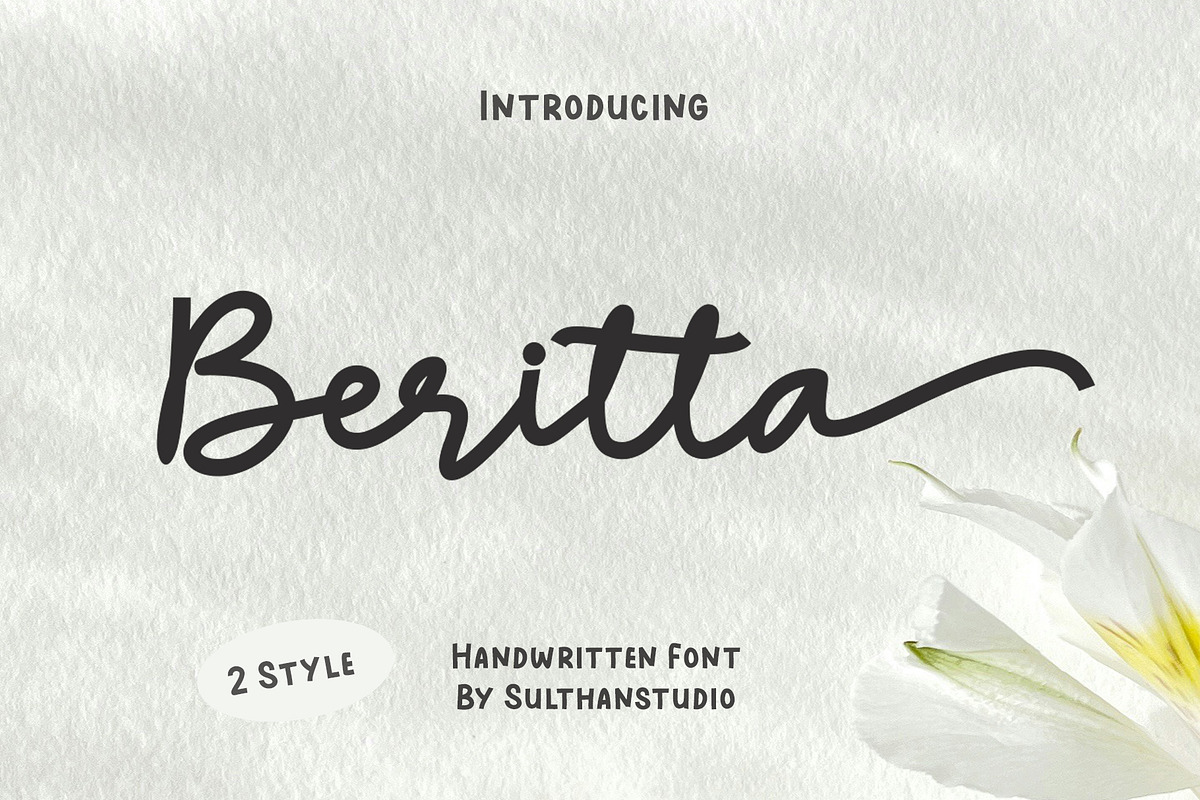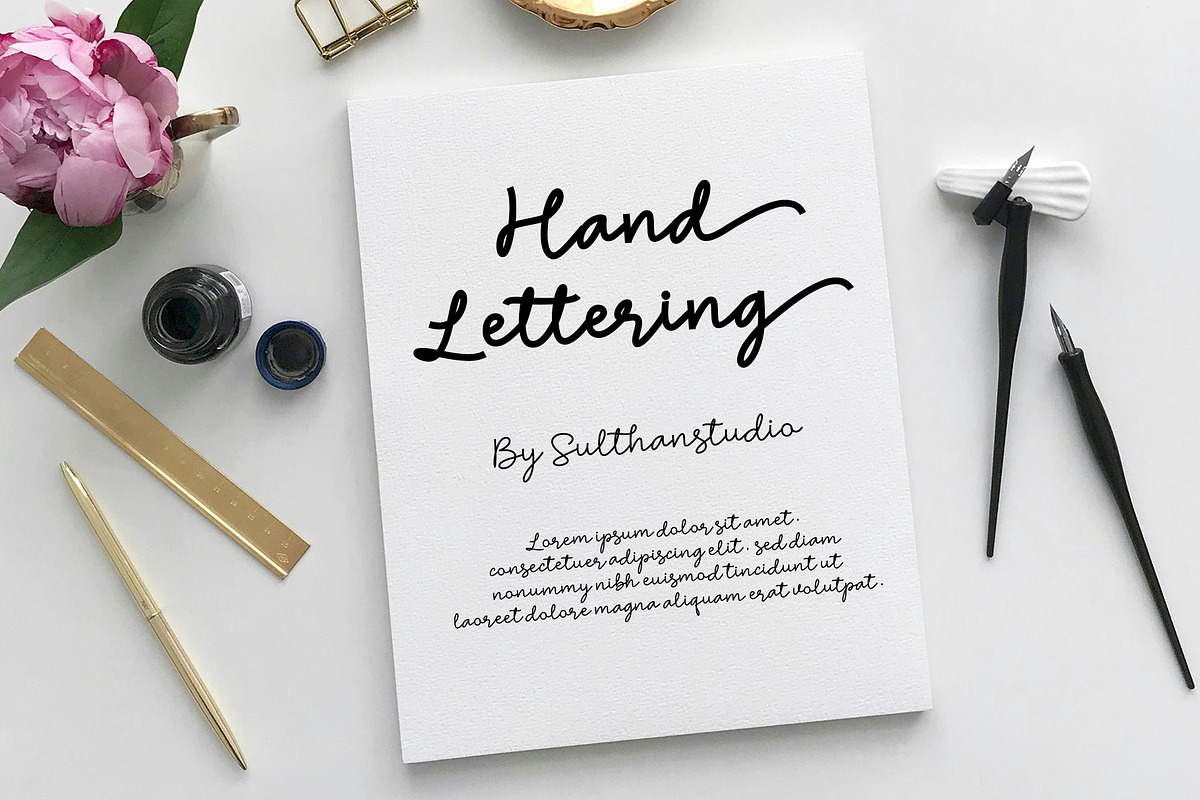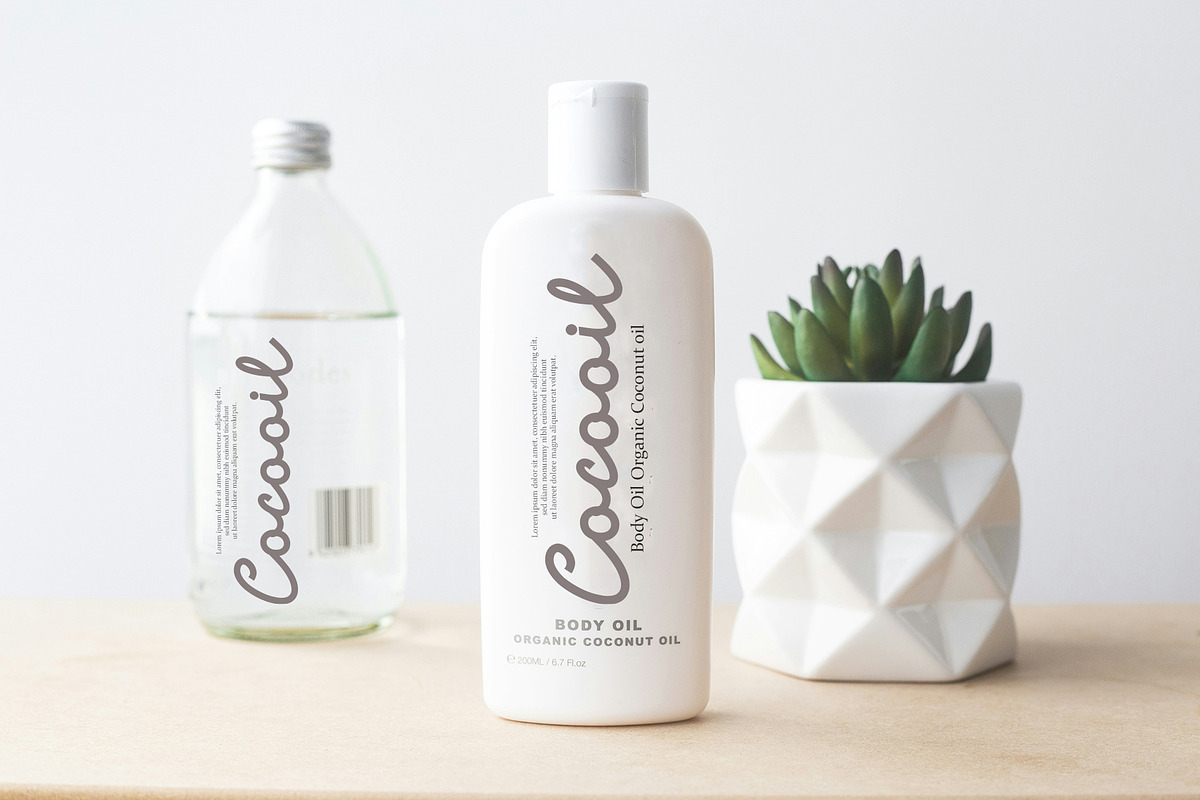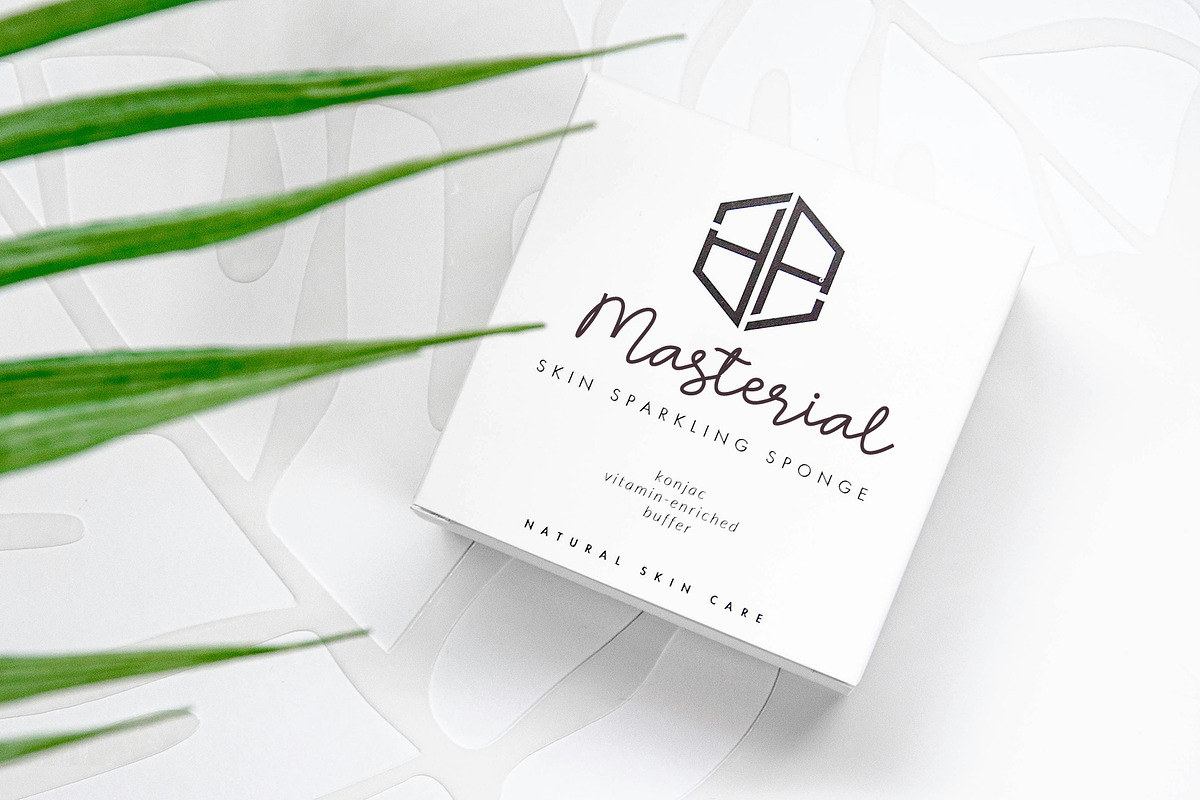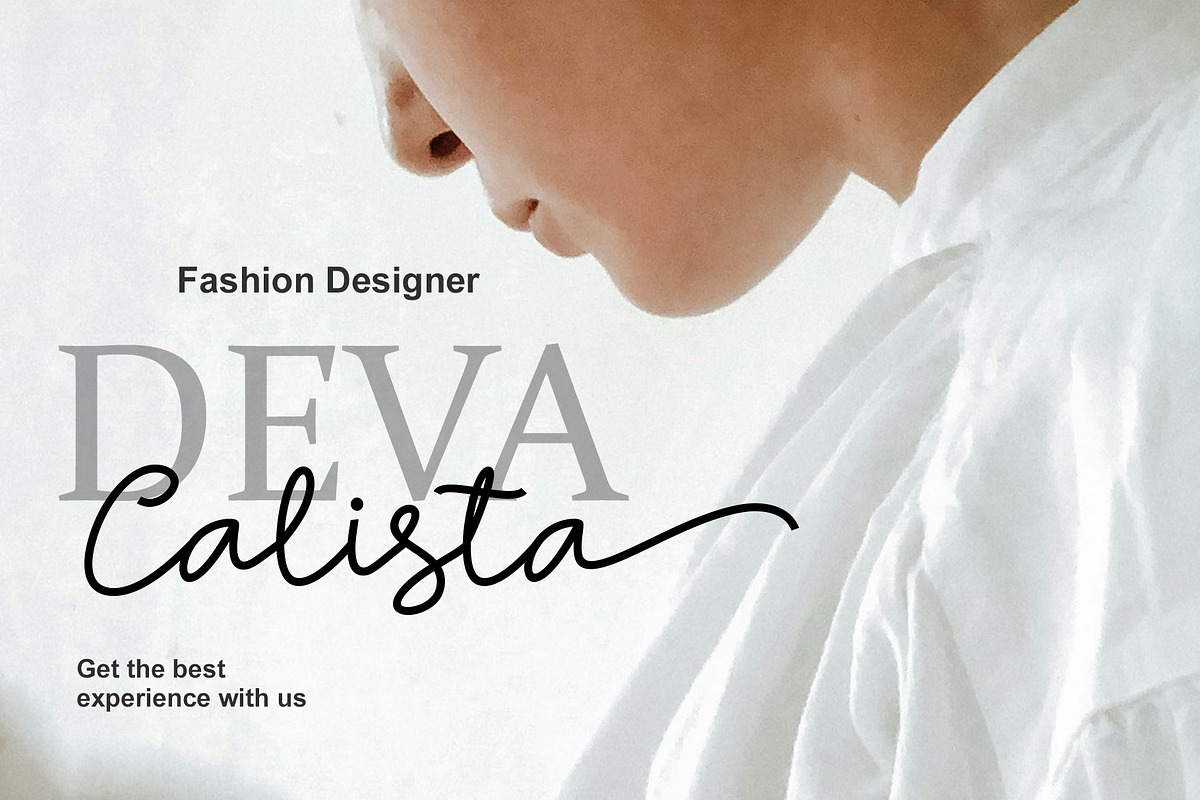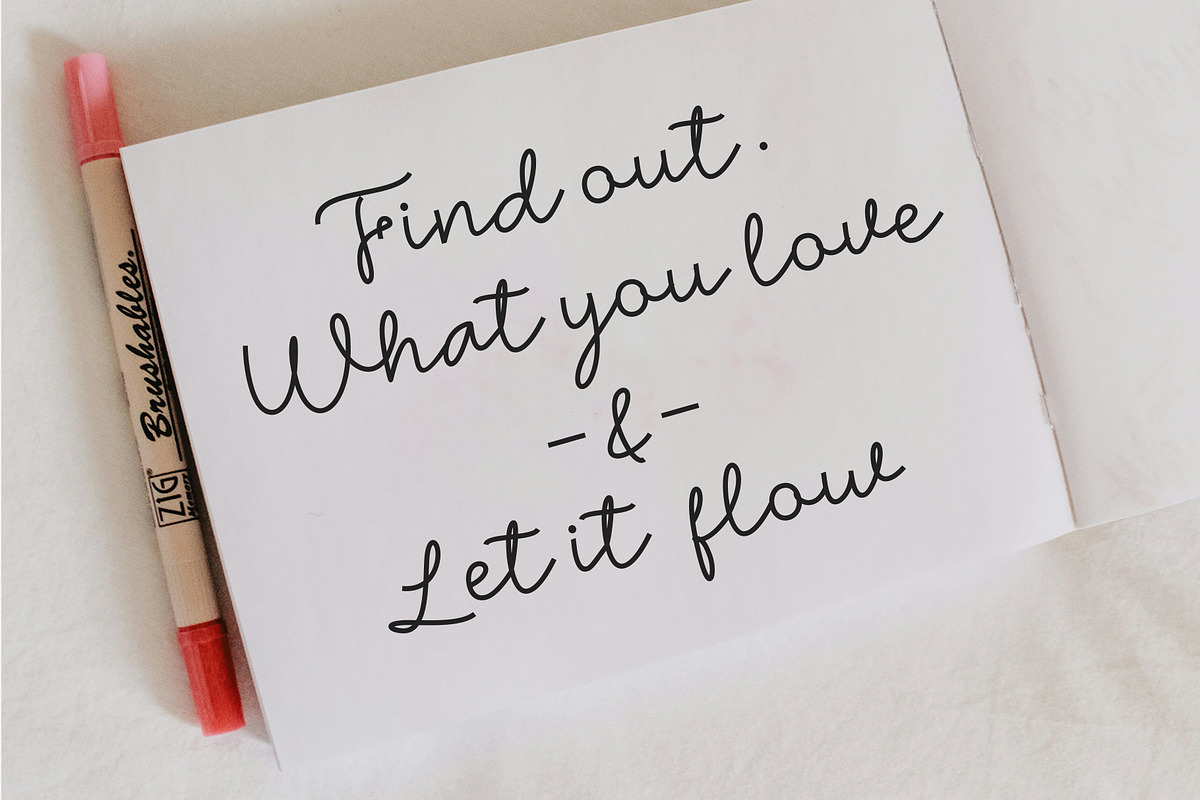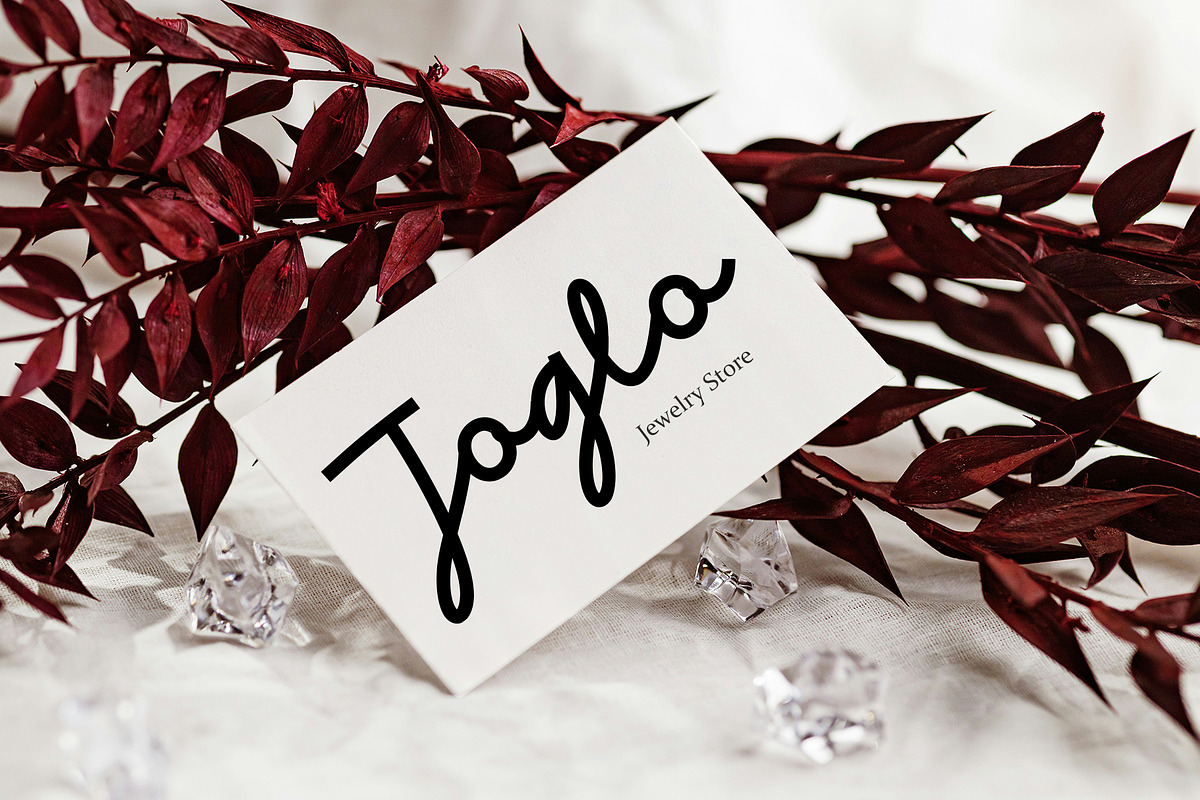
Beritta
Embody the essence of craftsmanship with Beritta, an exquisite handwritten font offering two distinct styles - regular and bold. Its uniqueness and aesthetic appeal make it an unmatched choice for projects craving a touch of personality and authenticity, putting the power to captivate and inspire right at your fingertips. Crafted diligently, this font brings the beauty of handwritten text straight to your design canvas, with its agility in blending seamlessly, ensuring your projects leave a lasting impression. Mark each project with the sublime artistry of the Beritta font - where sophistication meets simplicity.